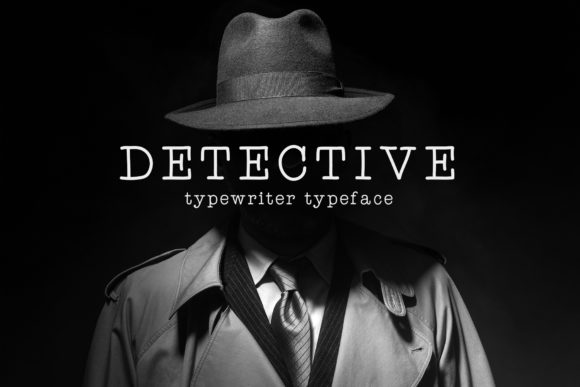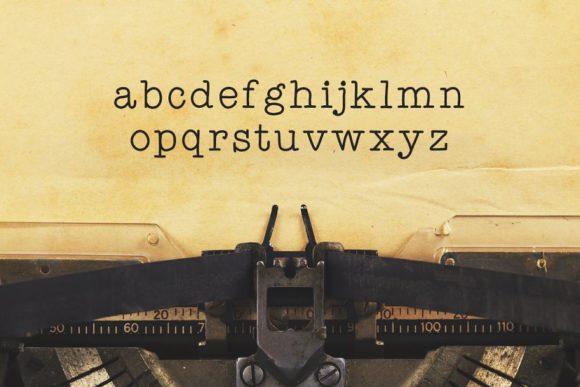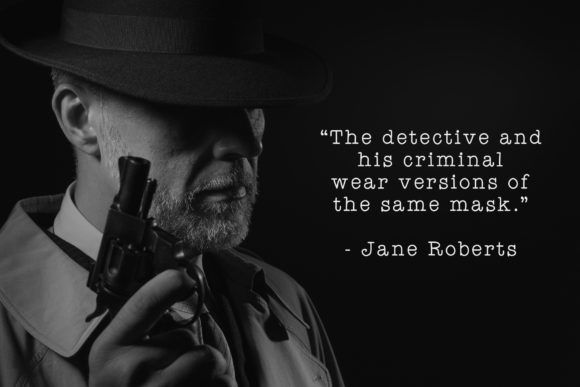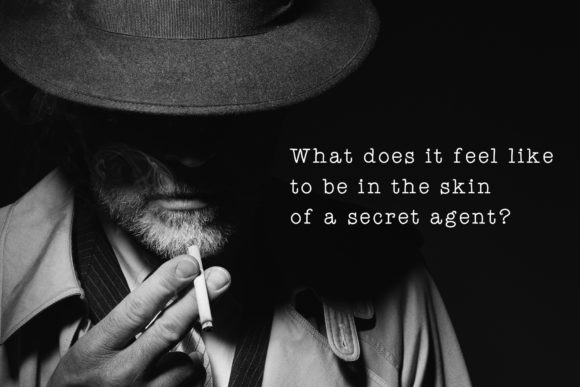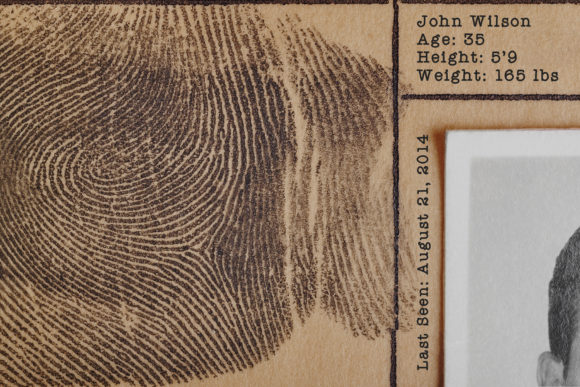
Detective Font
Detective is a classic serif font. This font combines old-fashioned charm with modern typographic sensibilities. It can be used for business correspondence or in any work that requires an old-fashioned, personal look.